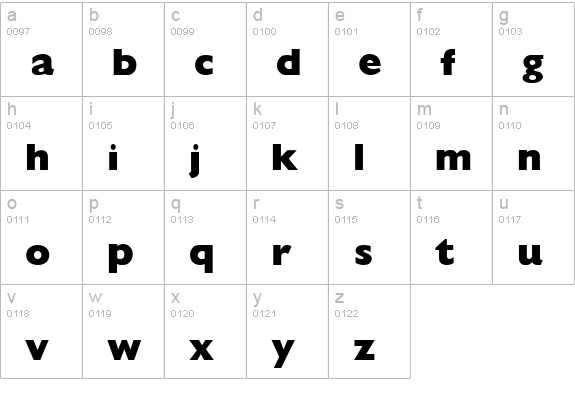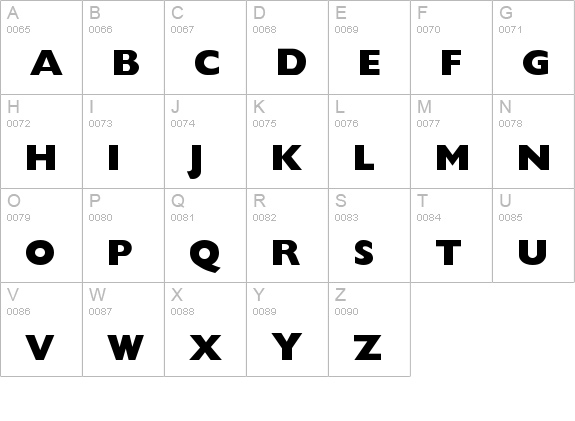
Giligan ExtraBold Font Details
Giligan ExtraBold is an extra-heavy, attention-grabbing variant in the Giligan typeface family \xE2\x80\x94 well suited to high-impact headlines, posters, and bold branding.
Introducing Giligan ExtraBold font - a striking and powerful typeface designed to make a bold statement in your design projects. With its strong and commanding presence, Giligan ExtraBold exudes confidence and modernity, perfect for headlines, posters, and branding materials that demand attention. This versatile font features thick, bold lines that provide a strong visual impact, while maintaining readability and clarity. Its clean and contemporary design ensures that your message will be communicated effectively and memorably. And the best part? Giligan ExtraBold is available for free download at FontsMarket.com, making it easily accessible for designers and creatives looking to elevate their projects with a touch of bold sophistication. Don't miss out on this opportunity to add Giligan ExtraBold to your font collection and take your designs to the next level.